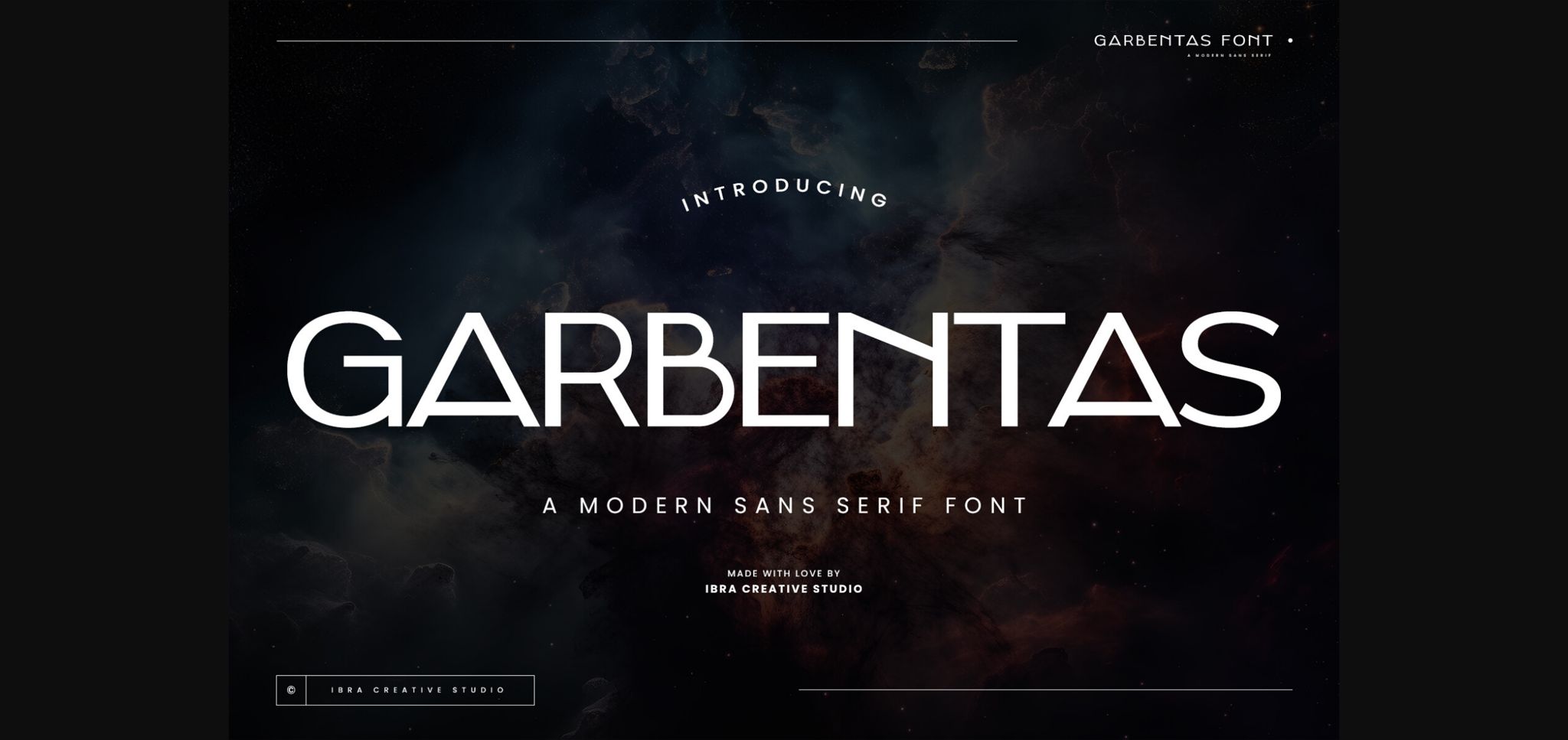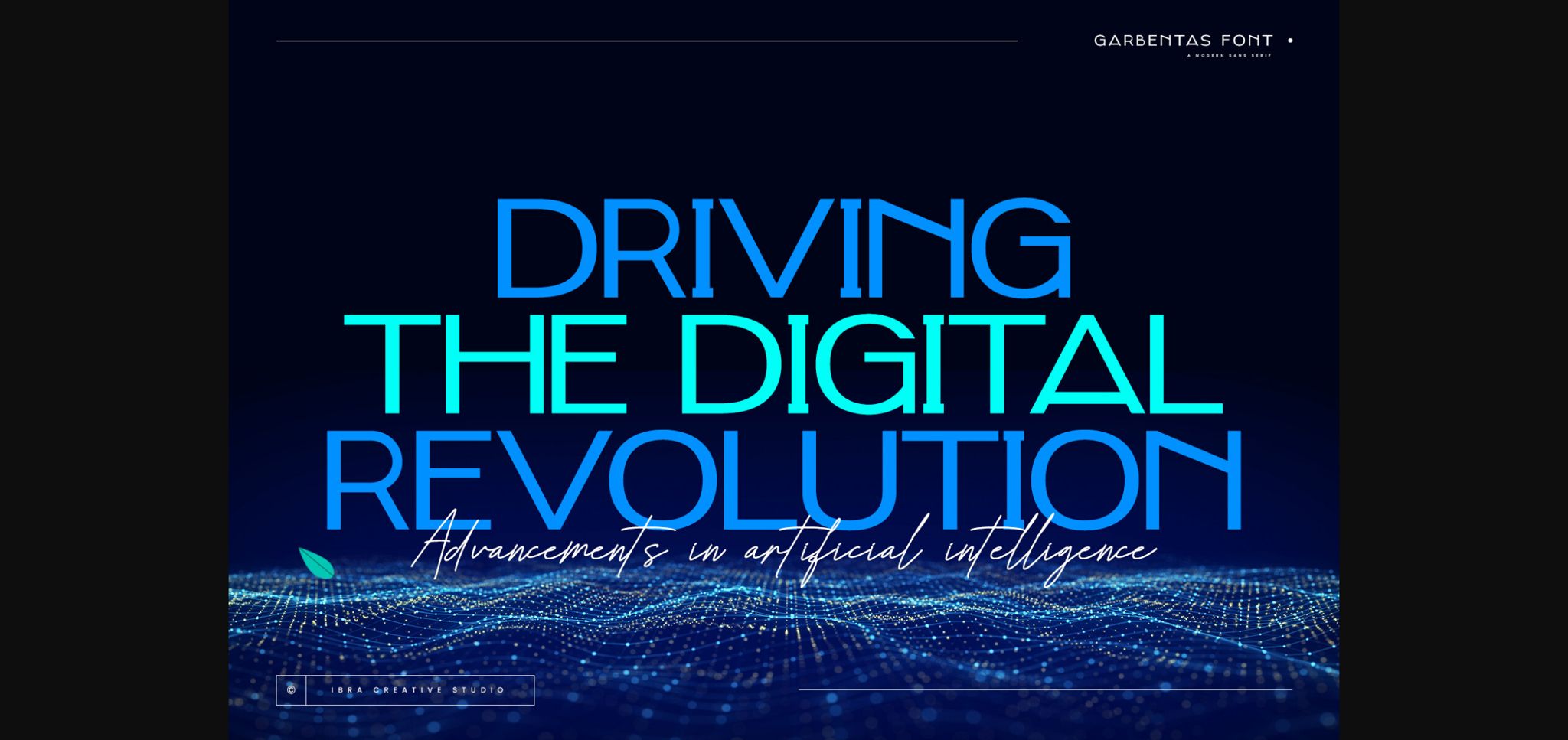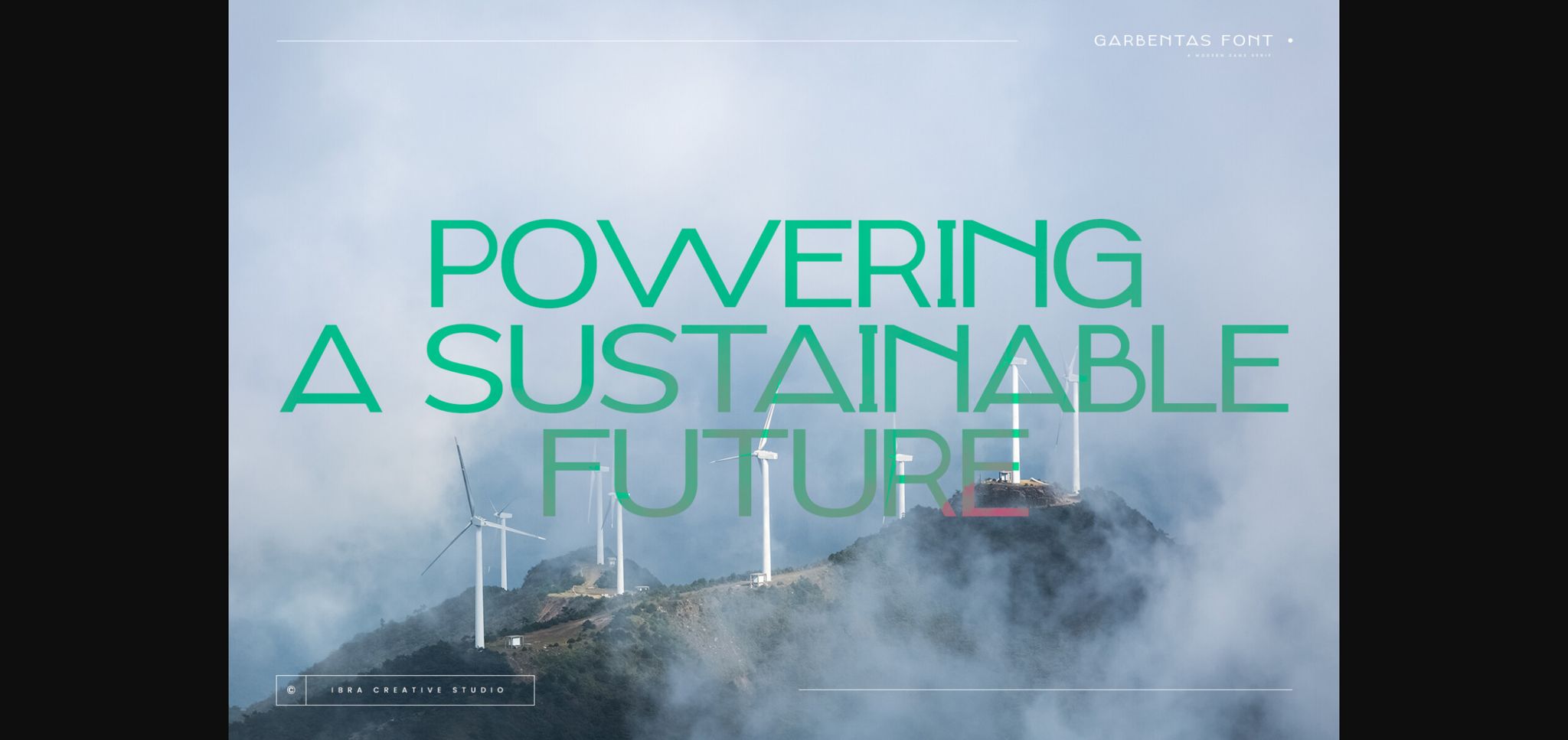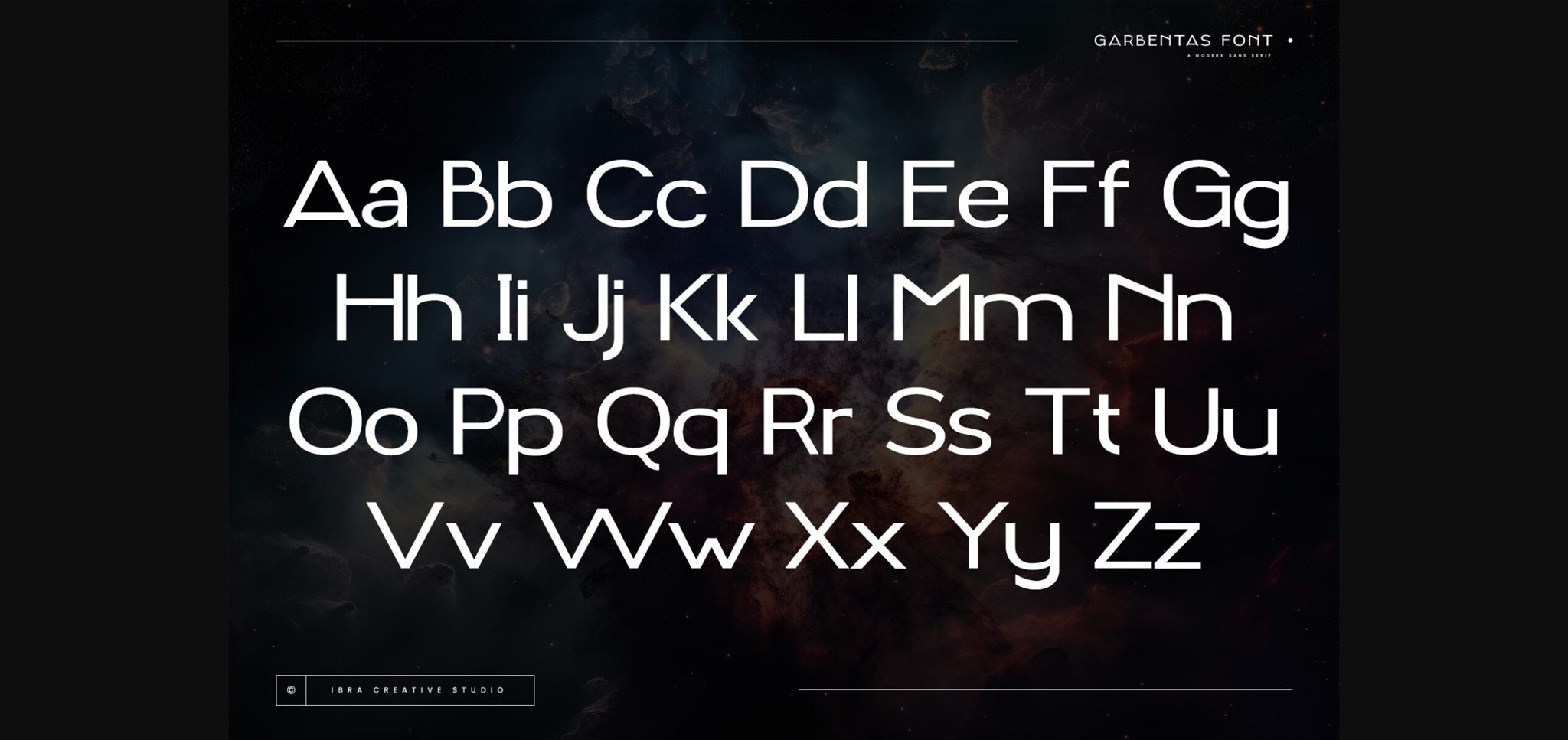
About Garbentas Font
Garbentas is a contemporary sans-serif typeface that seamlessly blends modern aesthetics with timeless simplicity. Its clean lines and balanced proportions exude a sense of sophistication, making it an ideal choice for a wide range of design applications. The typeface embodies a harmonious combination of elegance and readability, with each character meticulously crafted to achieve optimal legibility across various platforms.